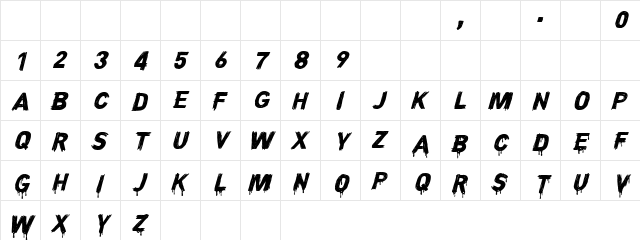
CF Night of Terror PERSONAL Regular
| Foundry | Cloutierfontes |
| Designer | Steve Cloutier |
Design Context for CF Night of Terror PERSONAL Typeface
CF Night of Terror PERSONAL is a composed and adaptable typeface that performs quietly and consistently across a wide range of design contexts.